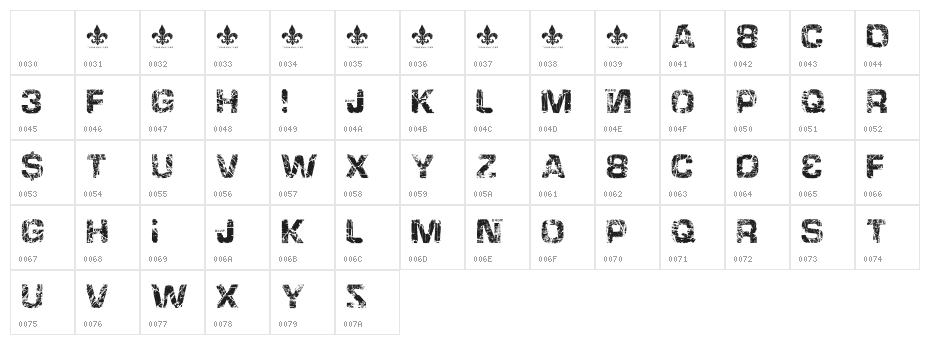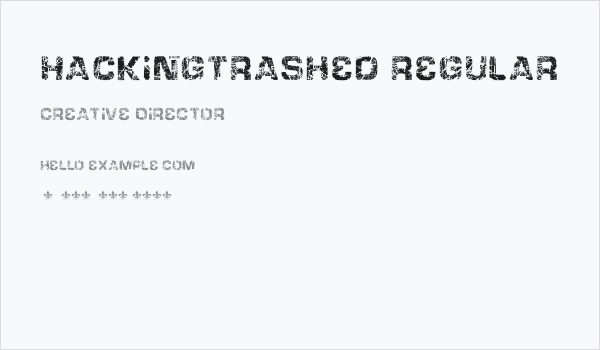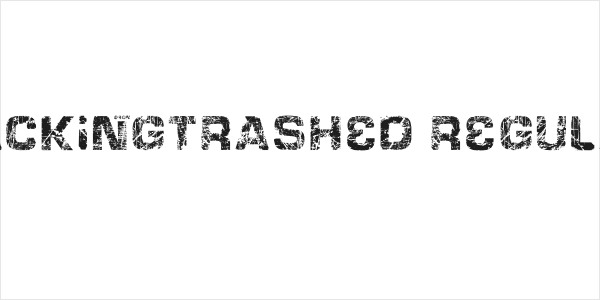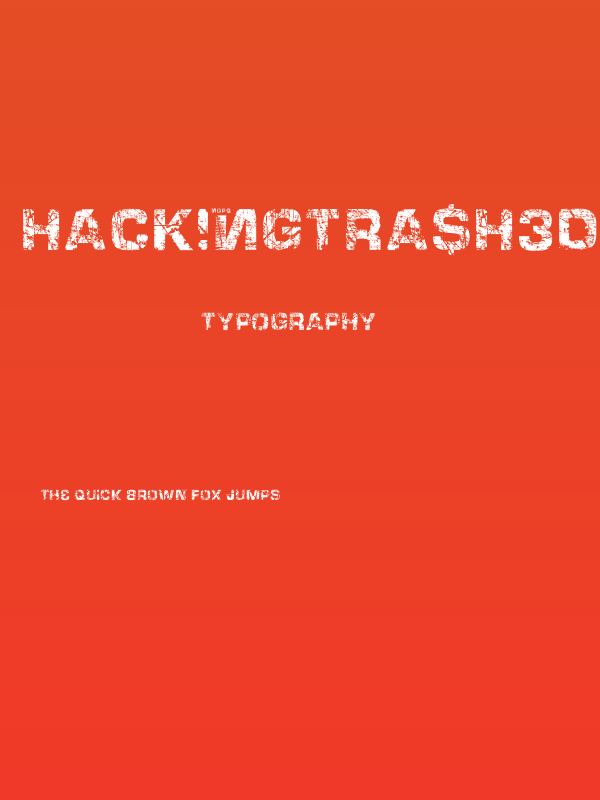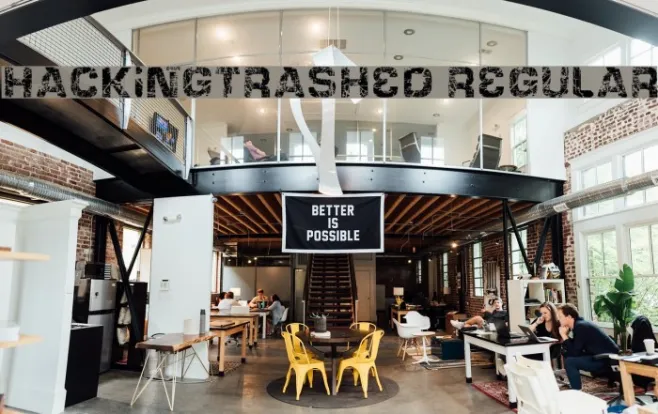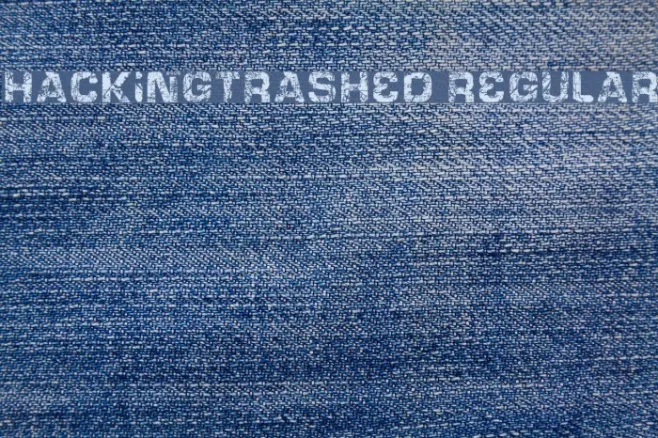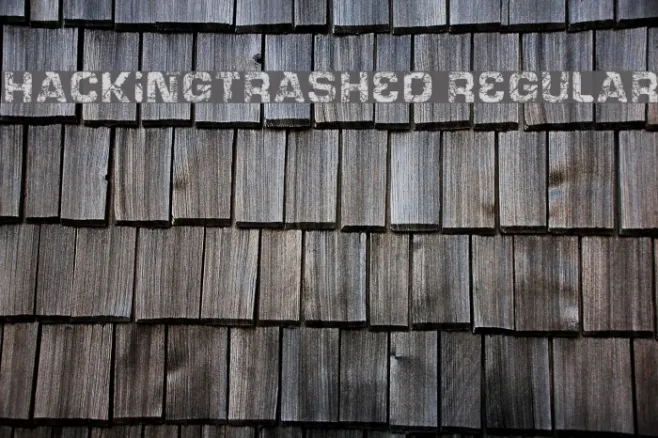
HackingTrashed Regular Font
HackingTrashed Regular Description
This font features a distressed, grunge style with a bold and rugged appearance. Each character appears as if it has been weathered or eroded, giving it a unique, textured look. The uppercase letters are prominent and maintain a consistent height, while the numbers and special characters follow the same distressed pattern. This font is ideal for projects that require a raw, edgy aesthetic, such as posters, album covers, or urban-themed designs. The overall style is distinctly decorative, making it stand out in any creative project.
| Proposed Projects | Ideal for posters, album covers, urban-themed designs, and any project needing a raw, edgy look. |